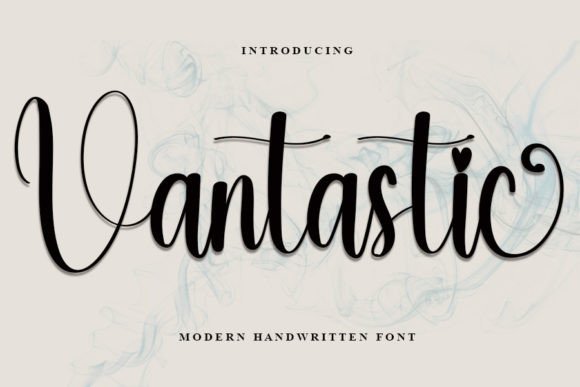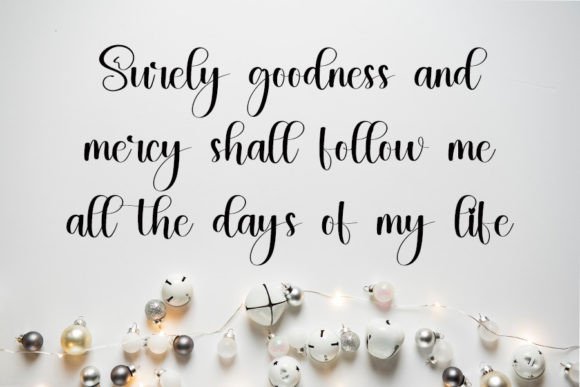
About Vantastic
Vantastic is a stylish handwritten font with a contemporary atmosphere and impeccable form, inspired by a timeless classic calligraphy. Balanced and varied, this font was designed to enhance the beauty of your projects.